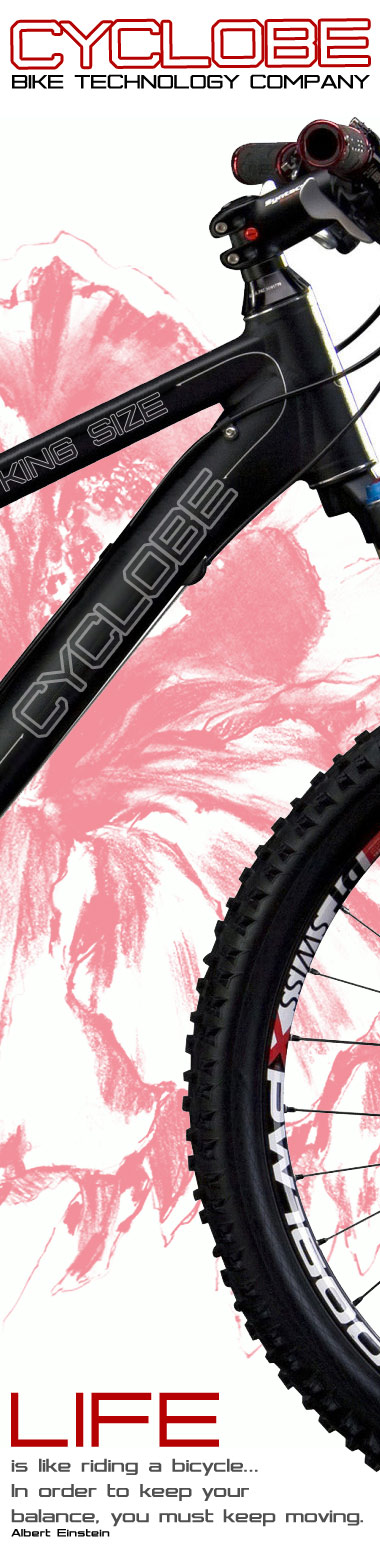
Well, it seems we've got a very strong competition with plenty of excitement. CYCLOBE pro is a strong contender in my opinion, and I don't envy the jury for making decisions at the end of the contest. 10/10
Wow. Things are heating up. Great inspiration, Kix. Would make a great typeface for a high performance bike company. If you can't delete your double sample posting, I can get rid of it.
another worthy opponent :) your work is evocative of the sleek and rugged bike frame. simple. graceful. strong.
Expertly chosen character widths and attendant choices of subject and style. You make this look effortless, just like the world-class all-star you are!
Very convincing sample. Congrats.
ooh...the race is on! Very "PRO" indeed.
Another excellent entry. Great sample.
All this talent surging ahead and my mind is still stuck in 'crawler' gear.
Awesome font, kix. It's really very professional, I envy your fontstructing skills! :)